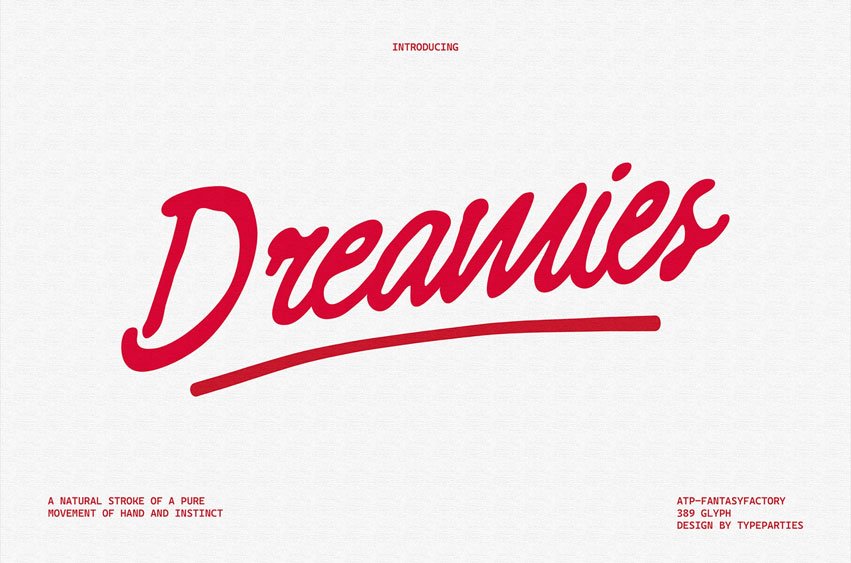
Dreamies Font is crafted entirely by hand, built from the organic strokes of pen on paper.
Every letter carries the raw flow of handwriting—bold curves, tight connections, and subtle imperfections that machines can’t replicate. It’s not polished into uniformity; instead, it preserves the natural rhythm of the hand, making each character feel alive and personal.